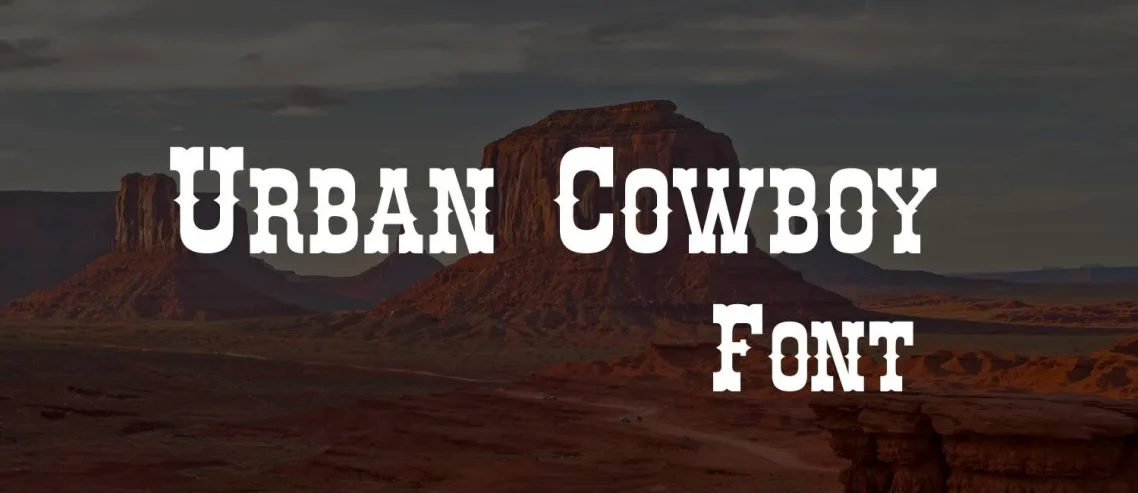
Urban Cowboy Font is a typeface that was created in the early 1980s. The font was designed to be used on signs and posters for the film “Urban Cowboy”.
The letters in this Font are all capitalized. There is a very limited amount of punctuation marks included in the font. If you are looking for a font that has a strong Western influence, then the Urban Cowboy Font is a great choice.
It is also known for its immense language support same as the friz quadrata font and it can support many different international alphabets.
| Designer | Miguel Ibarra |
| Style | Display |